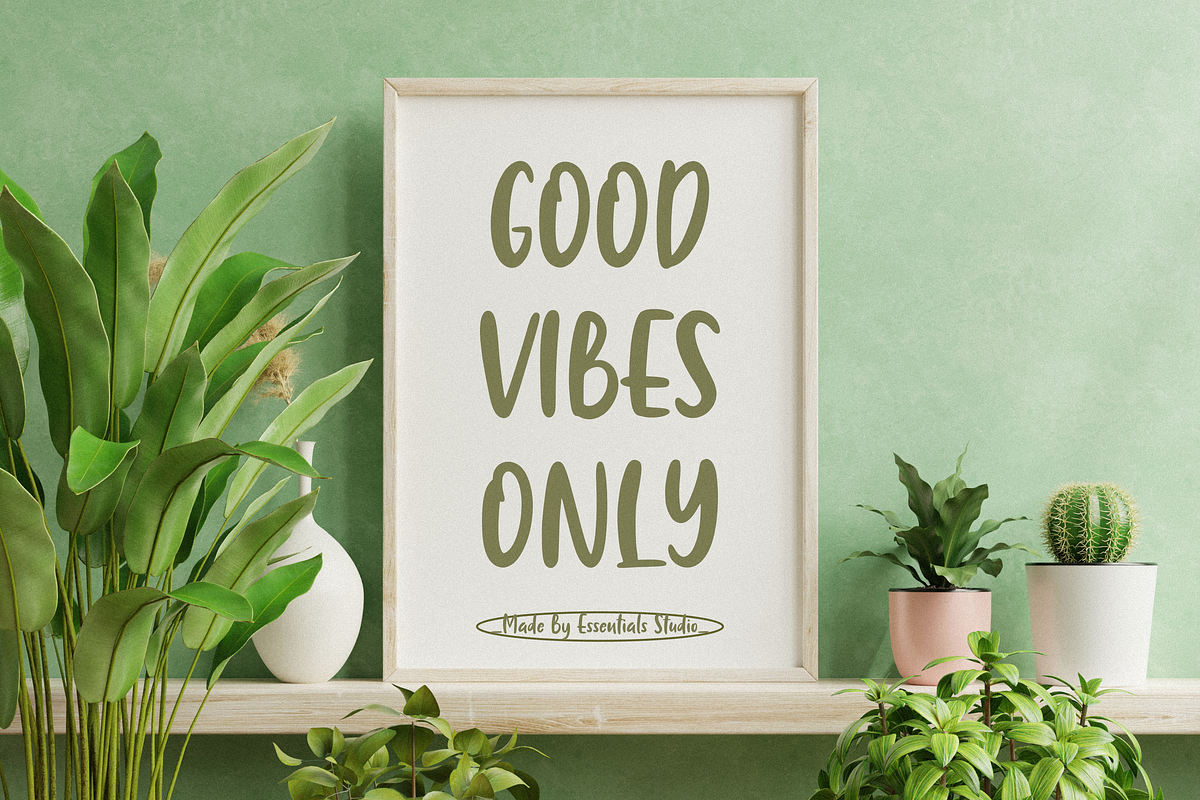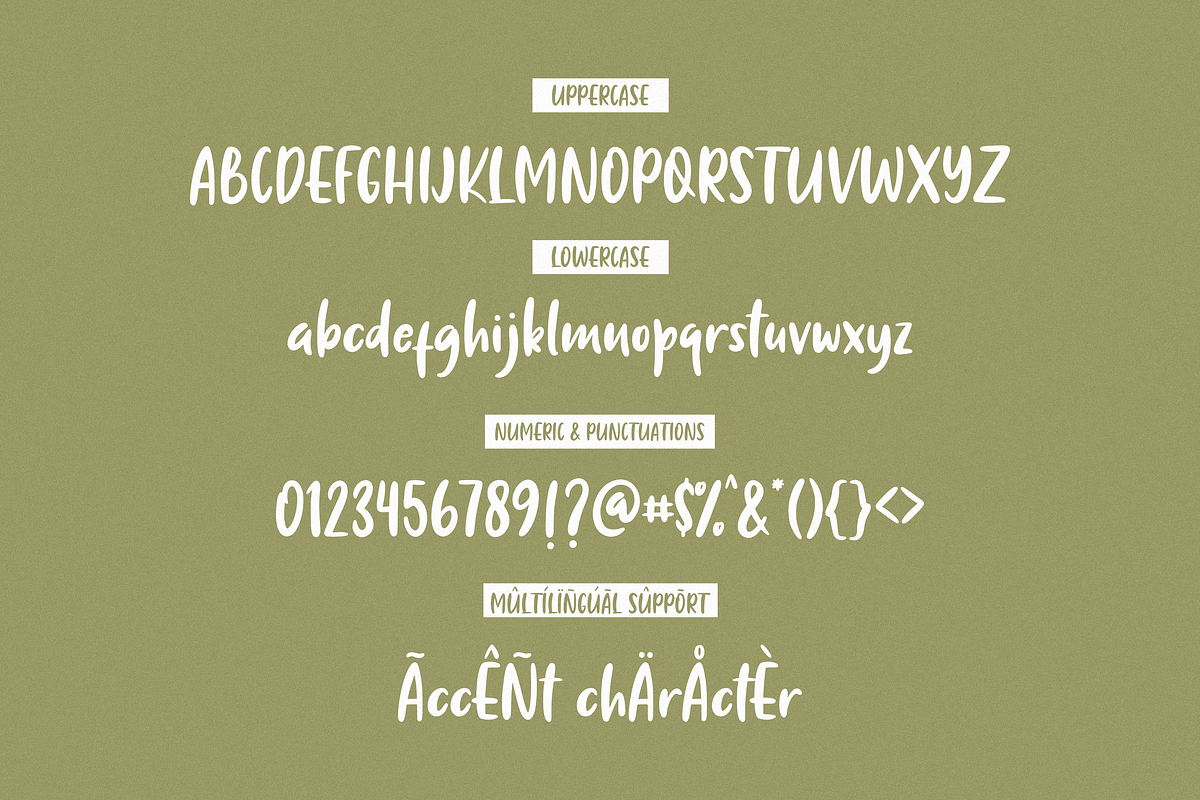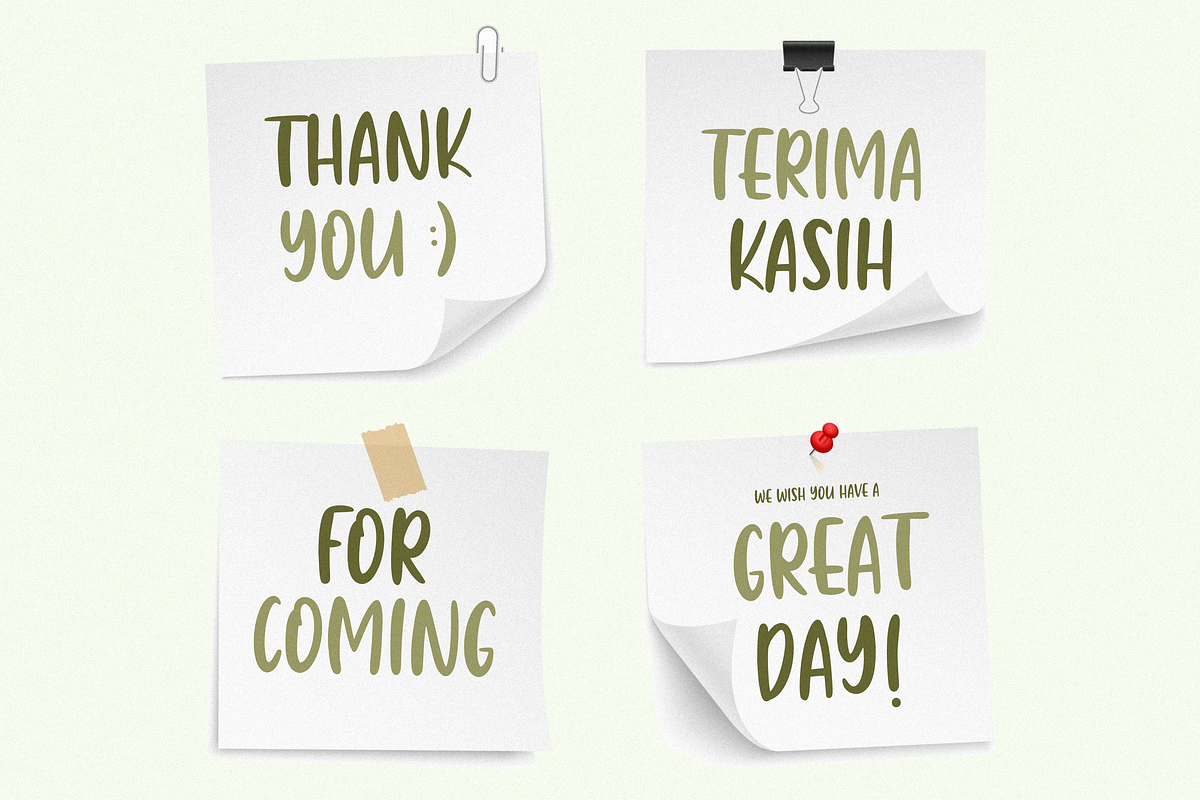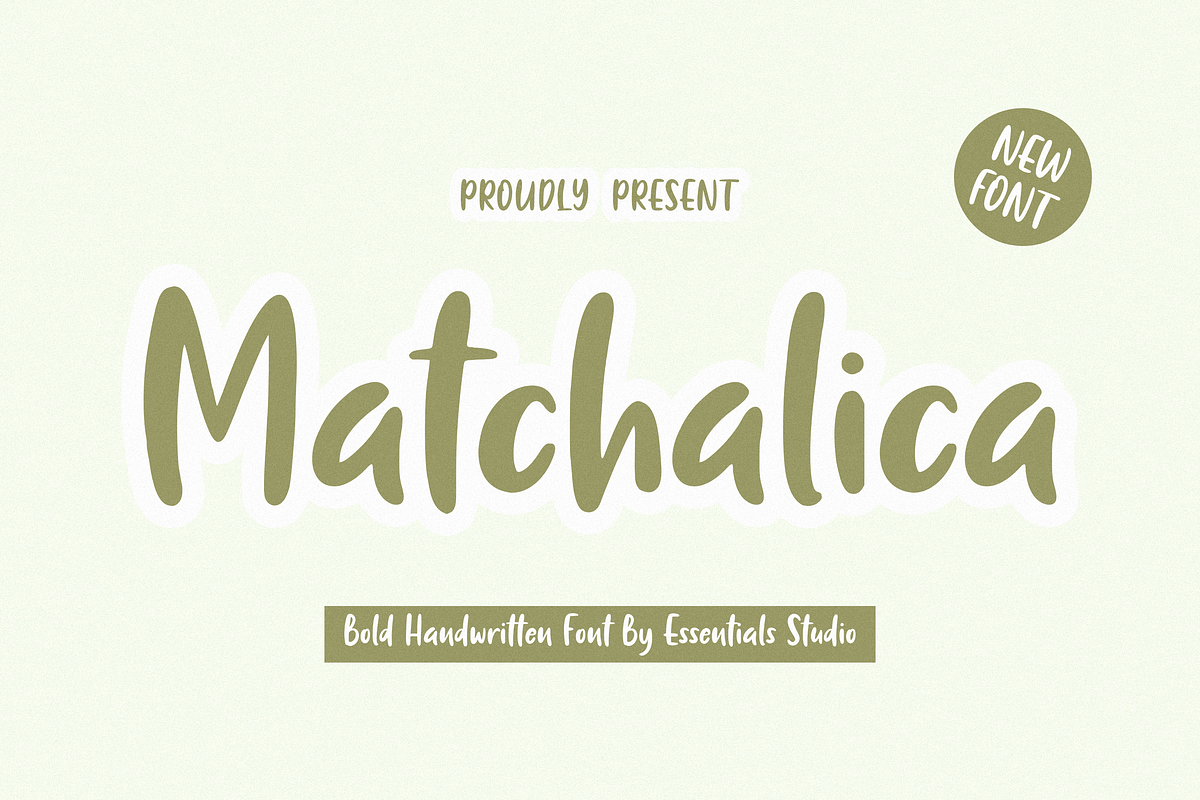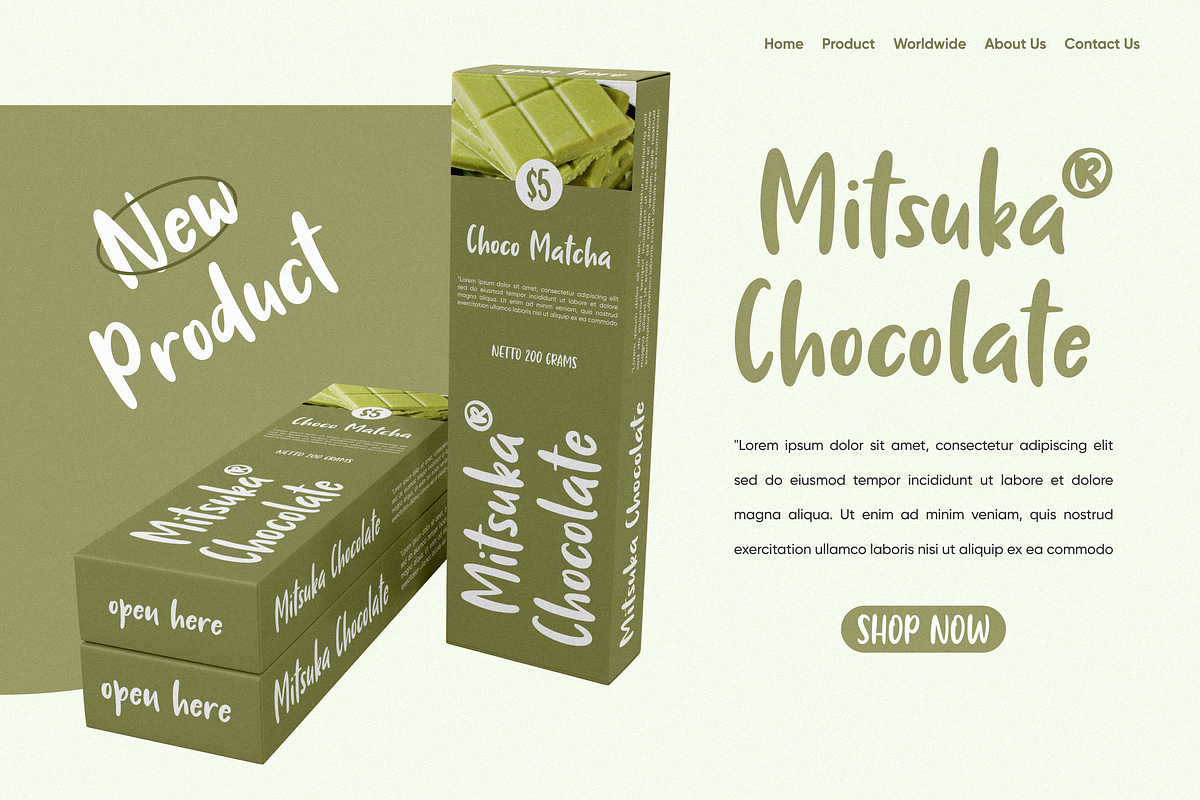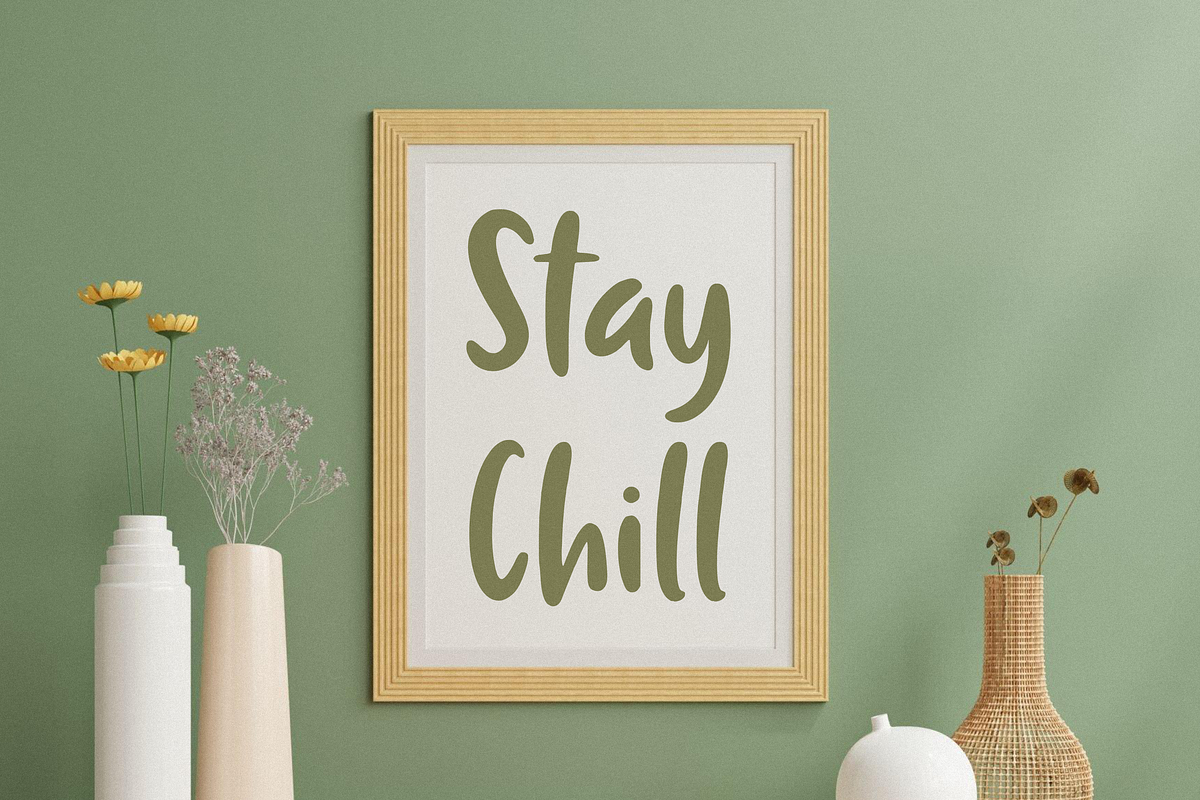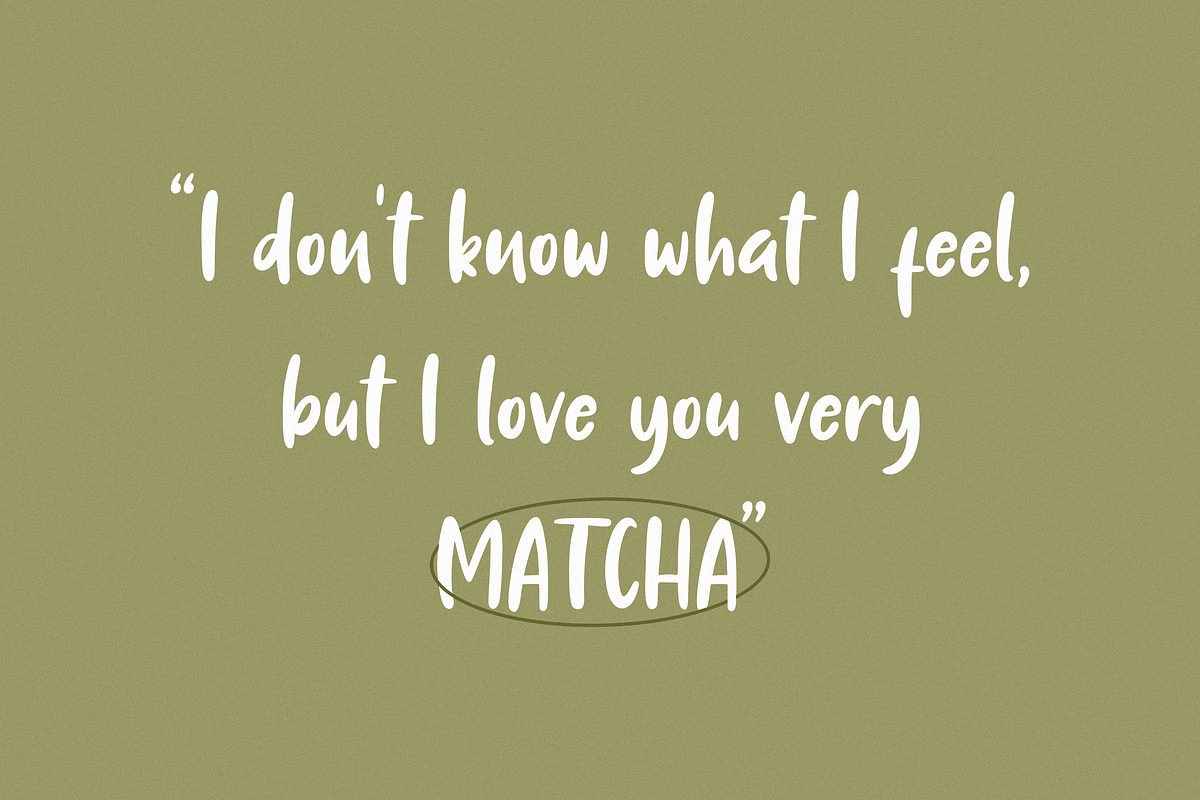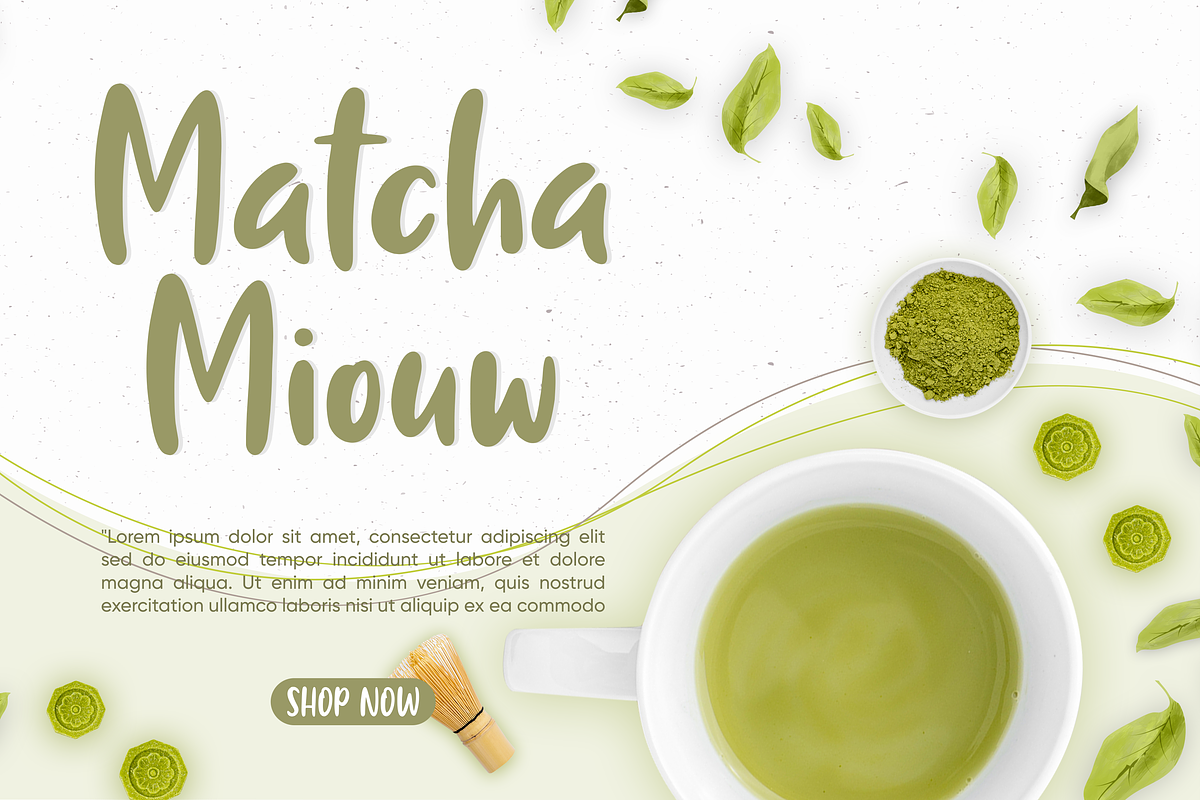
Matchalica
Introducing by Essentials Studio Proudly Present, Matchalica
Matchalica Is a A Bold Handwriting Font
Matchalica is perfect for product packaging, branding project, megazine, social media, wedding, or just used to express words above the background.